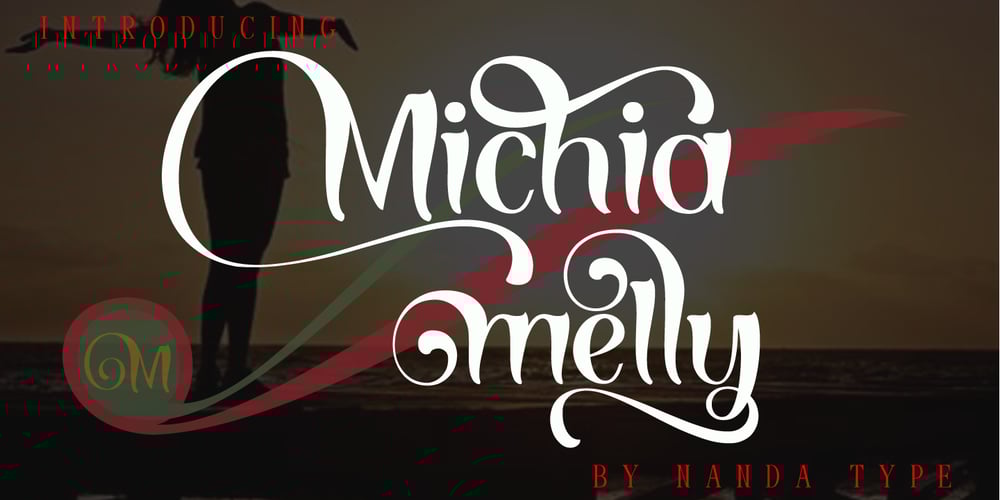
Michiamelly Font Family was designed by Nanda Type and published by Nandatype Studio. Michiamelly contains 1 styles and family package options. Michiamelly is a fancy, bold font with multilingual support. This is a very versatile font that works well in both large and small sizes.Michiamelly is perfect for branding projects, logos, wedding designs, social media posts, advertising, product packaging, product design, labels, photography, watermarks, invitations or any project you’re working on.